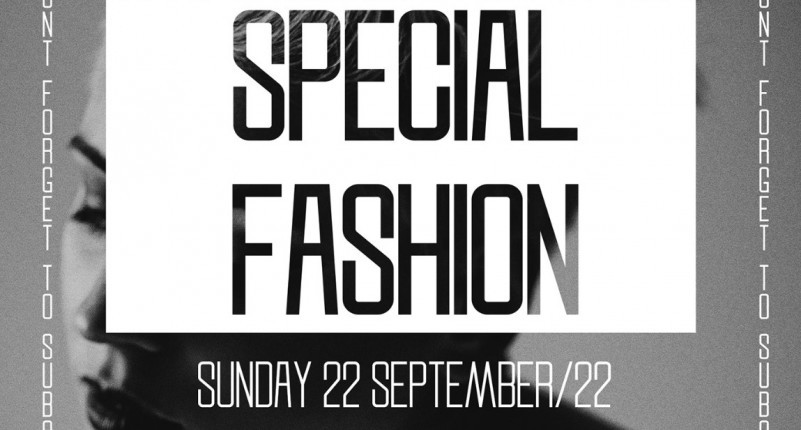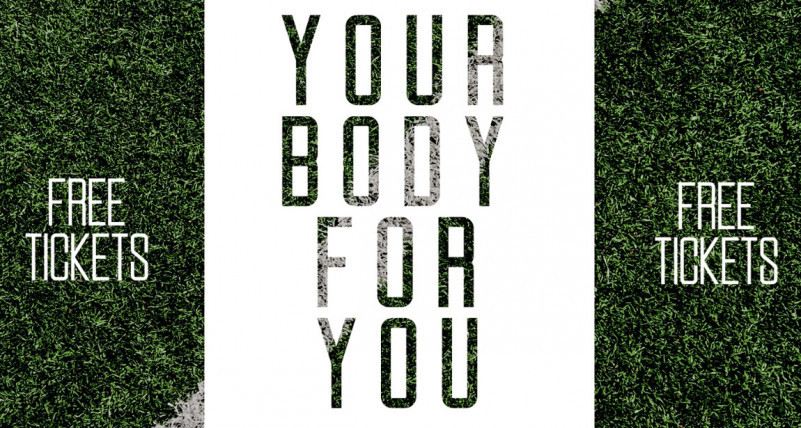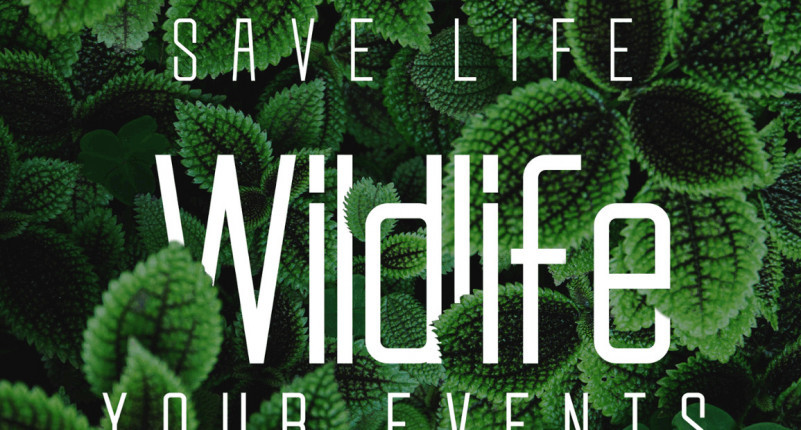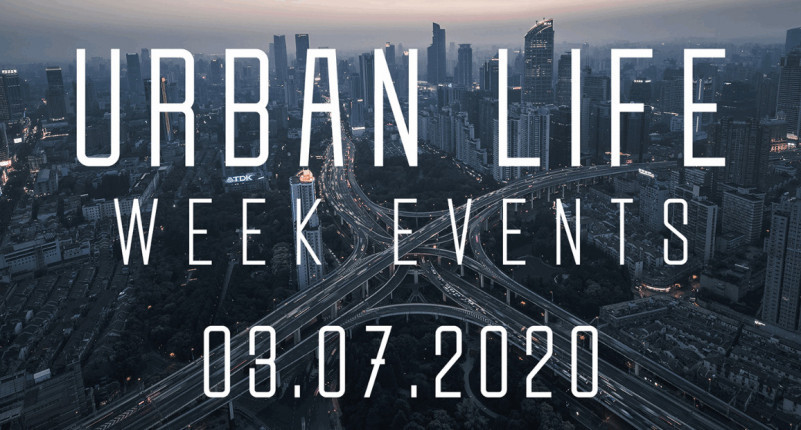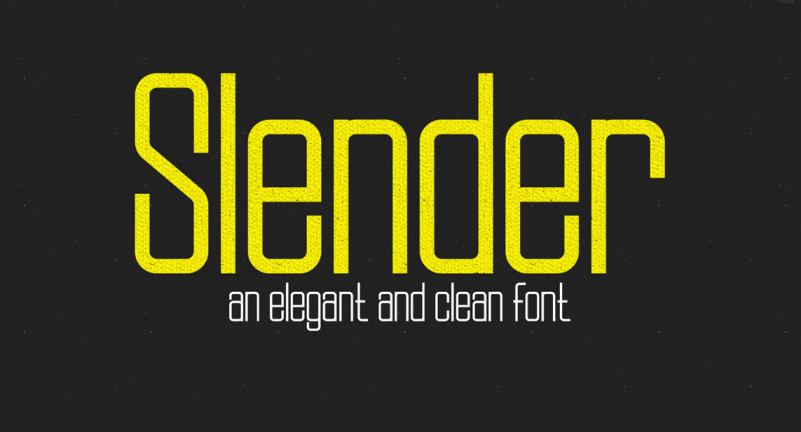
Slender Font Family
Hello! Slender is an elegant and clean font of 4 weights. It features higher crossbars, with slightly unorthodox character features. A must-have for those looking to step away from the traditional, boring, block typefaces in the market. Slender it’s free and elegant and clean geometric font. Modern typeface for books, headlines, logos, title, print, magazine. 4 weights : thin, normal, semibold, bold. Free font for commercial use.